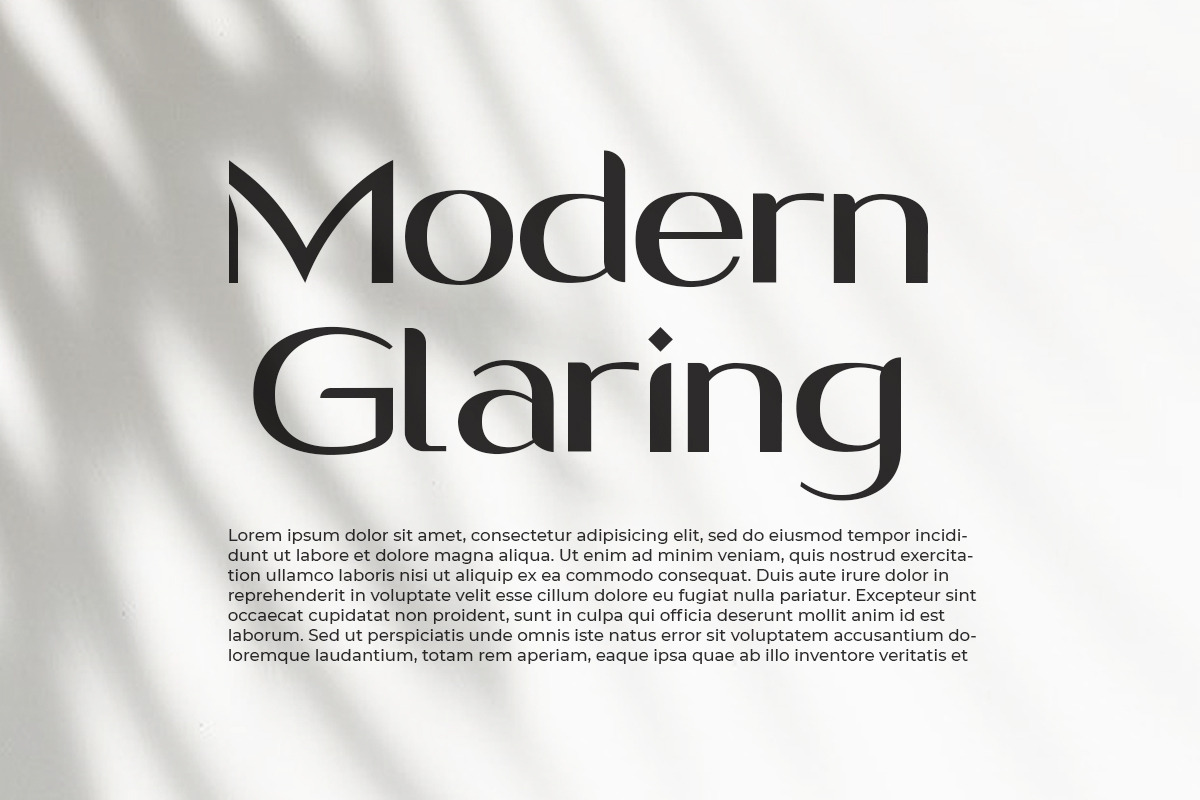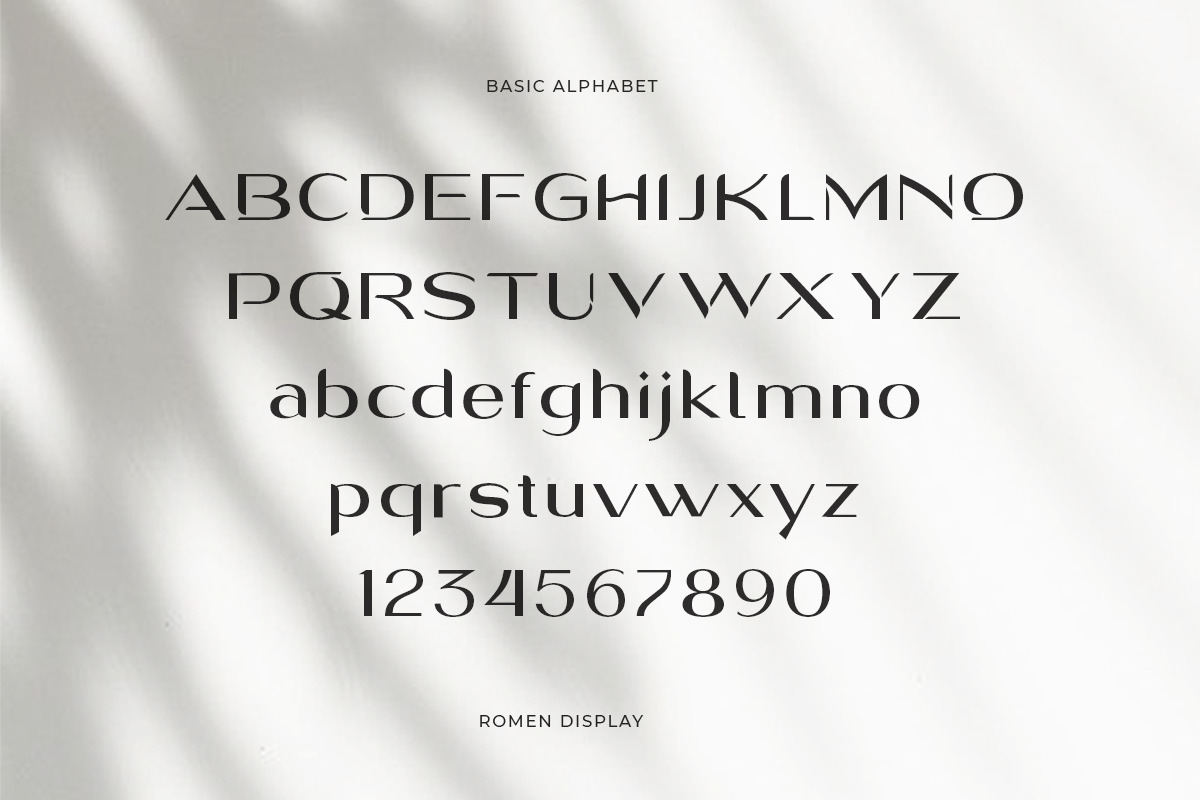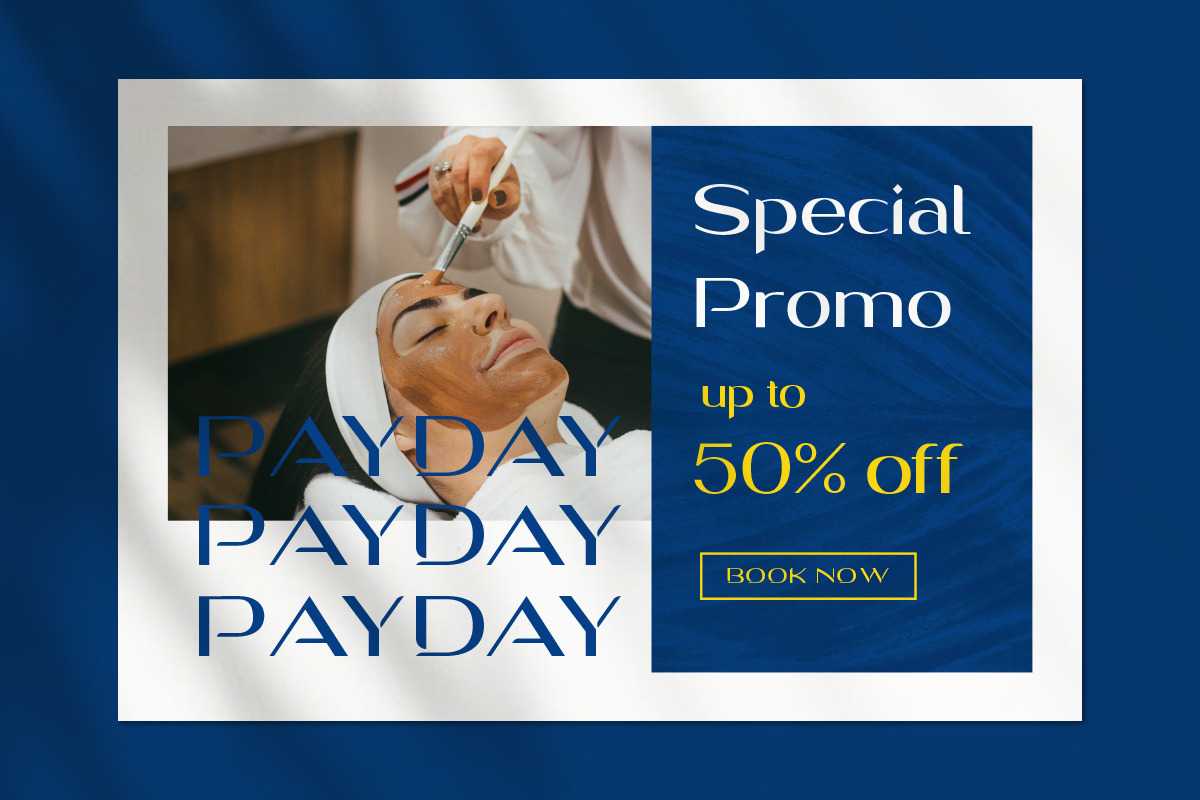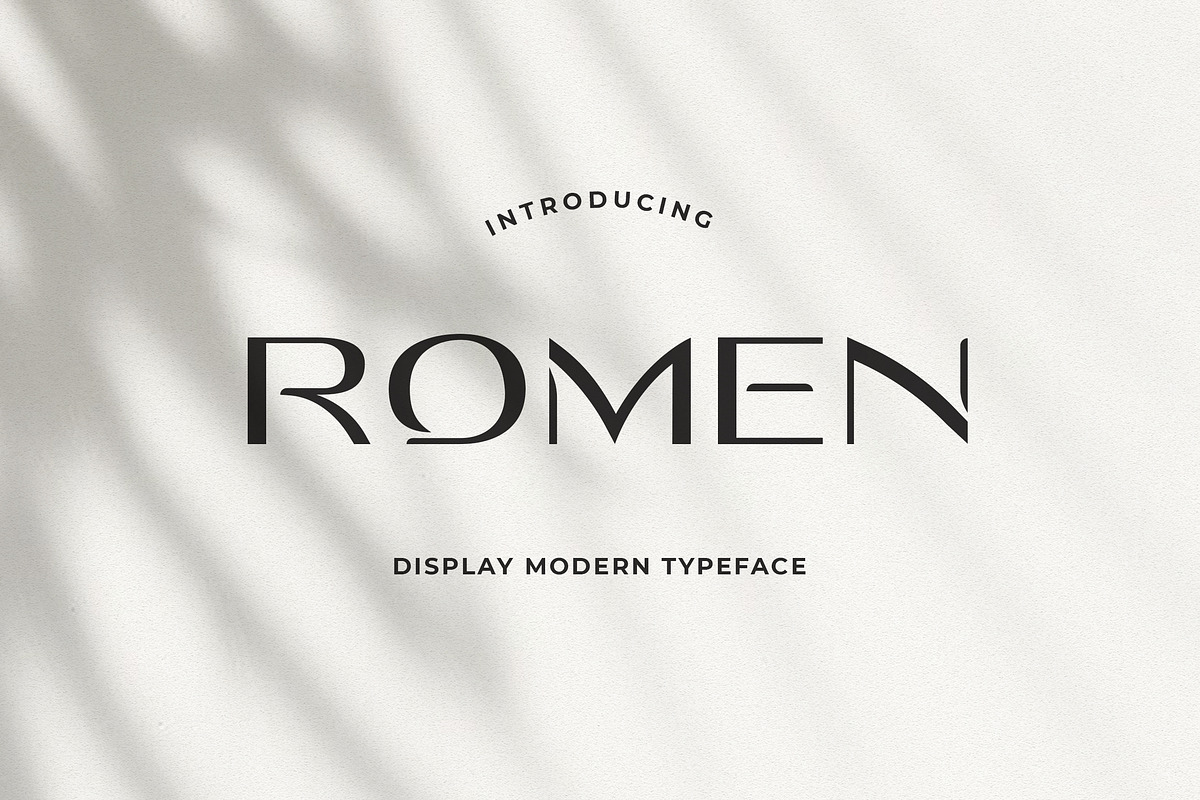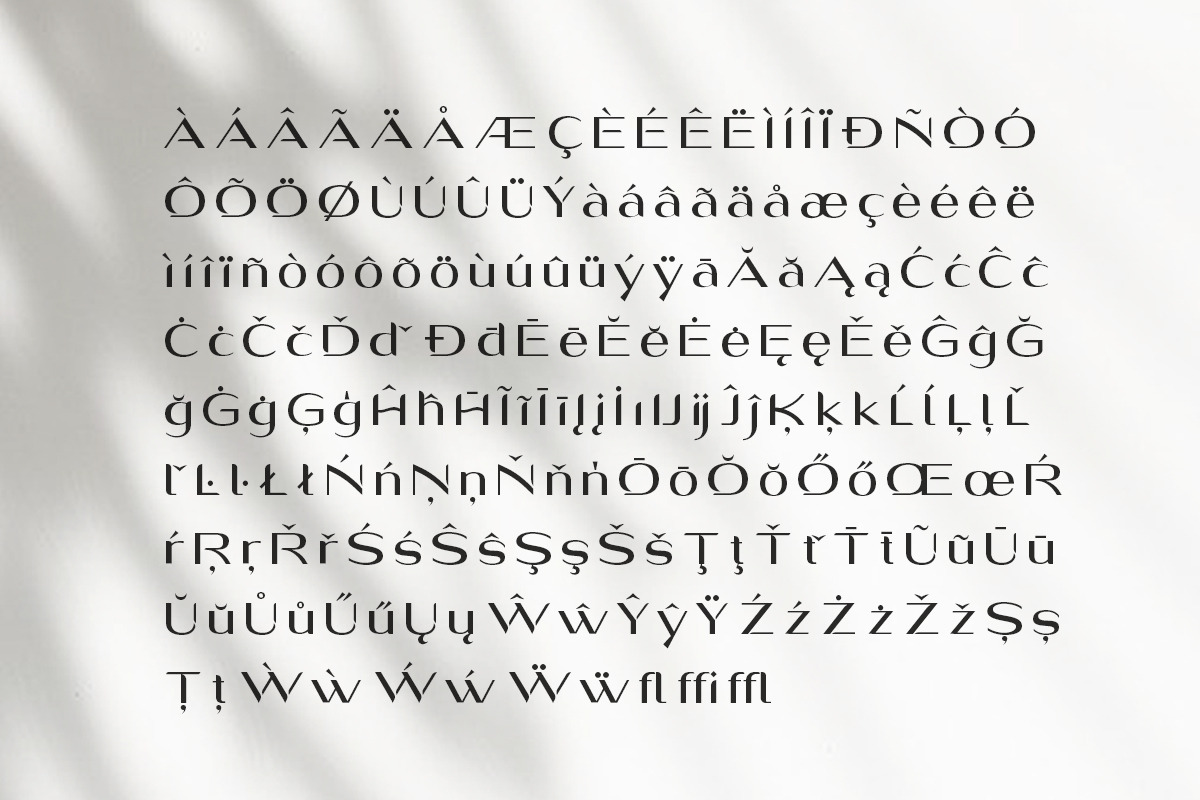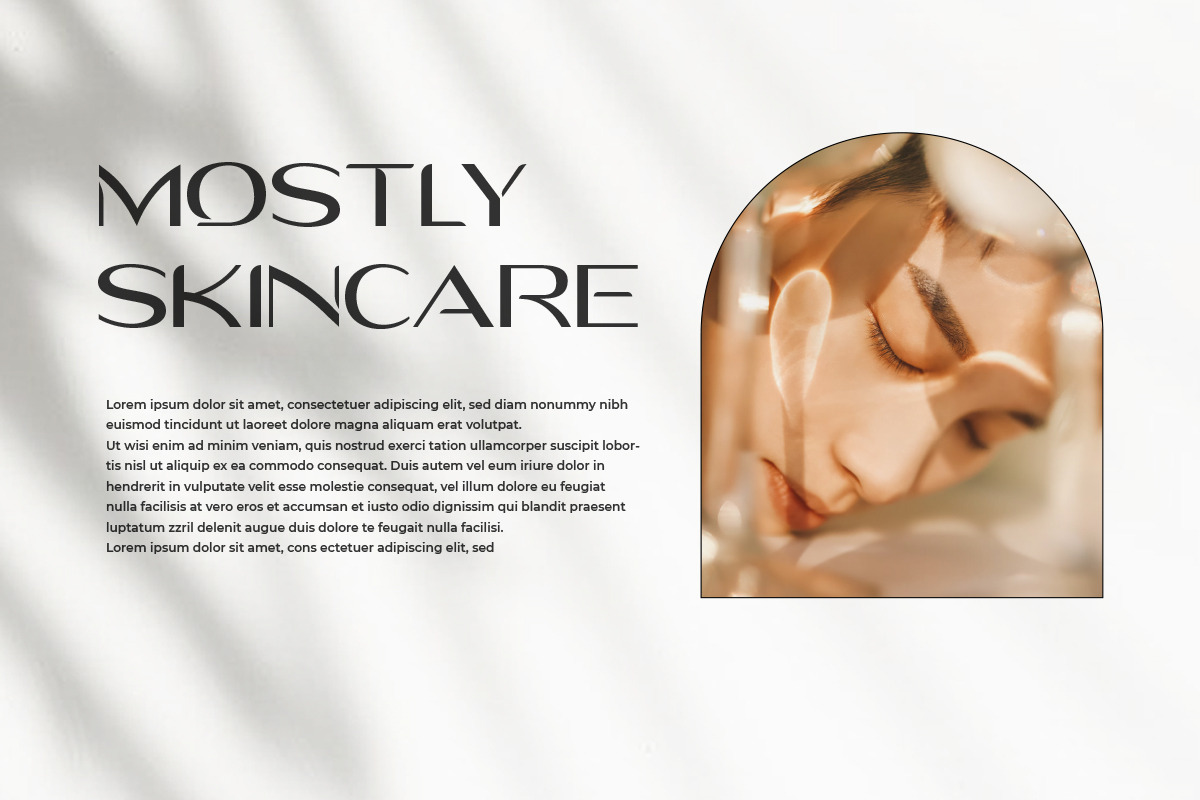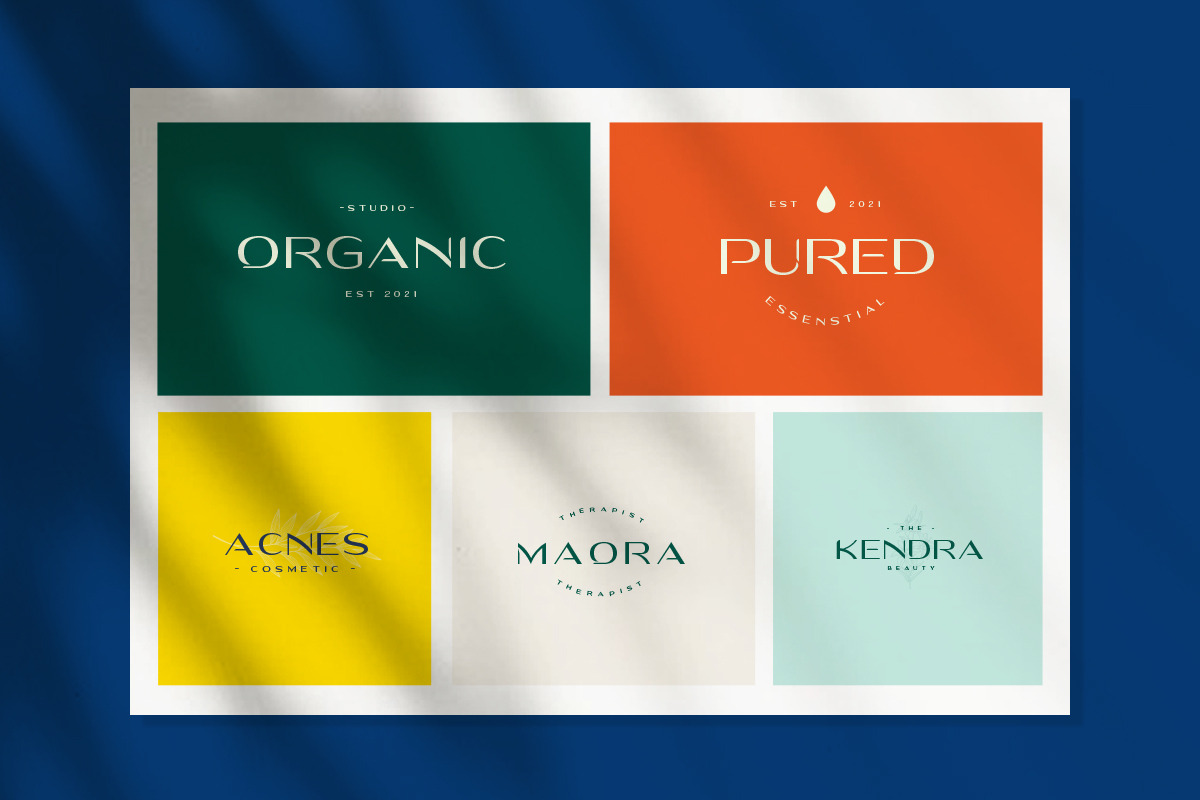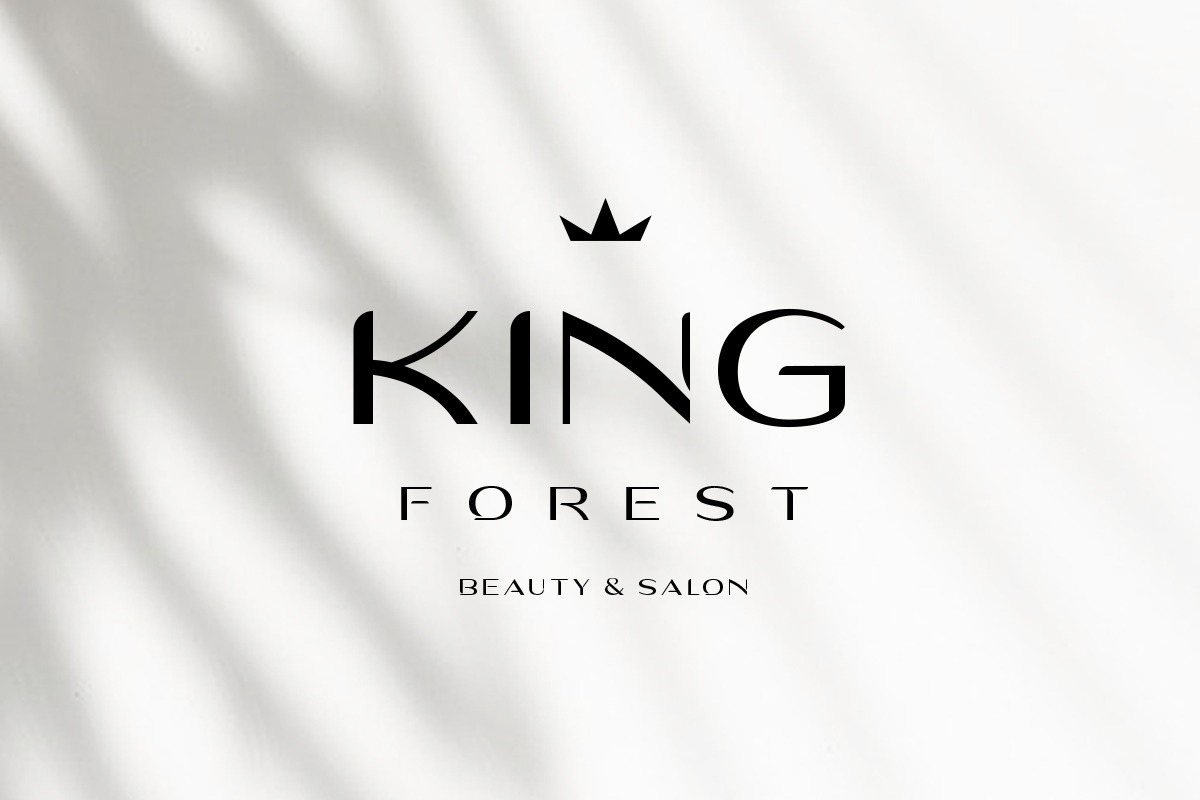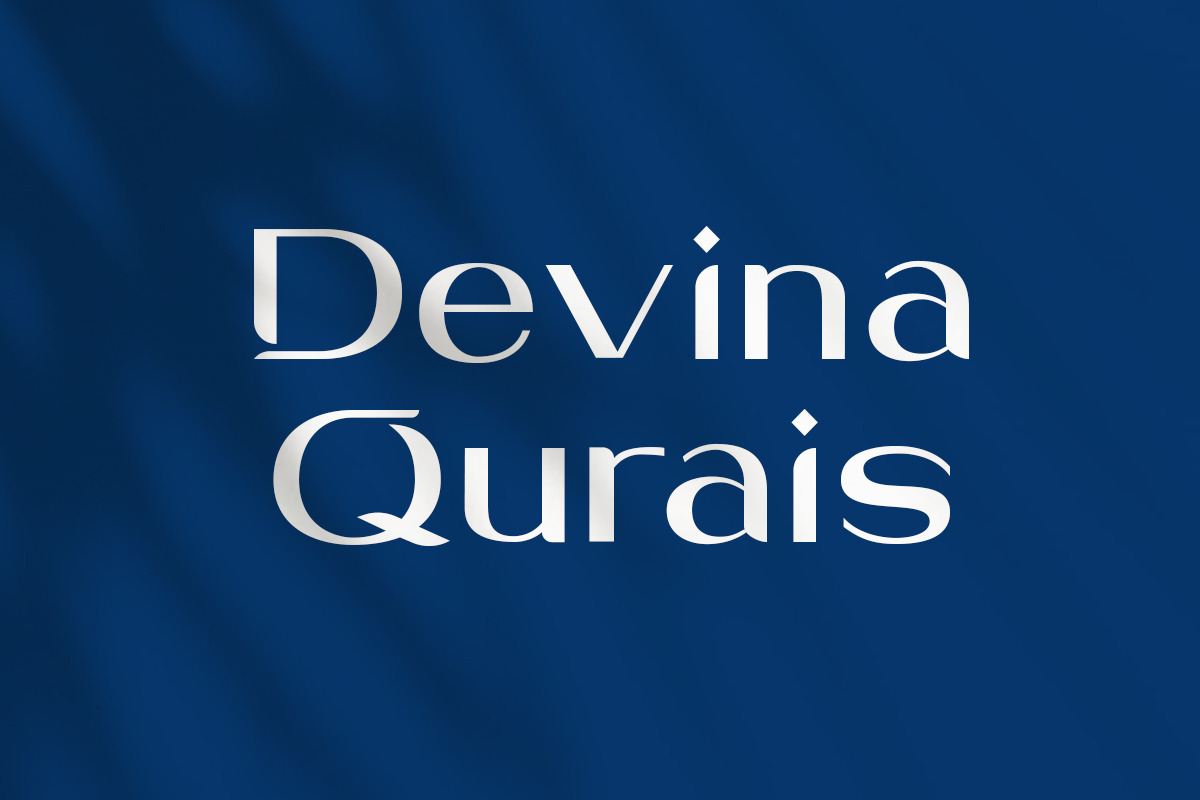
Romen Display Modern Typeface
Beautiful modern Sans serif with lots of style alternatives to choose from. The bold is clean and simple.This font is specially designed for beauty product logo ! Have fun and create more.